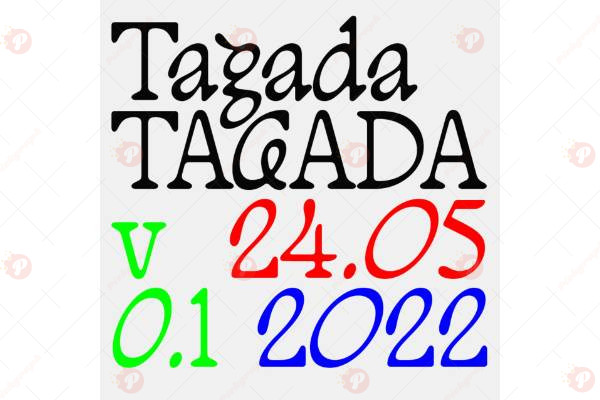
Tagada Font Free
The Tagada Font Free is a fun, playful, and modern display typeface that brings joy and energy to your designs. With its rounded shapes and cheerful letterforms, this font is perfect for children’s books, posters, event flyers, packaging, social media content, and creative branding.
Its friendly vibe makes it ideal for fun projects, kid-friendly designs, party invitations, and lifestyle branding. If you’re looking for a typeface that adds positivity and creativity, the Tagada Font Free is your perfect choice.
• Typeface: Display / Playful
• Style: Fun / Rounded / Creative / Modern
• Perfect for: Kids’ Books, Posters, Packaging, Invitations, Social Media, Branding
Spread happiness through design with the Tagada Font Free – a playful font that stands out everywhere. ✨